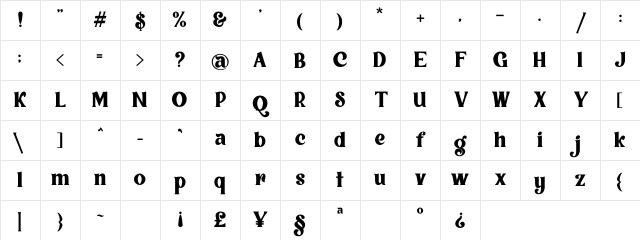
Vigallse Regular
Foundry: KrakenBox
Designer: KrakenBox
Design Context for Vigallse
Vigallse is a composed and adaptable typeface that performs quietly and consistently across a wide range of design contexts.